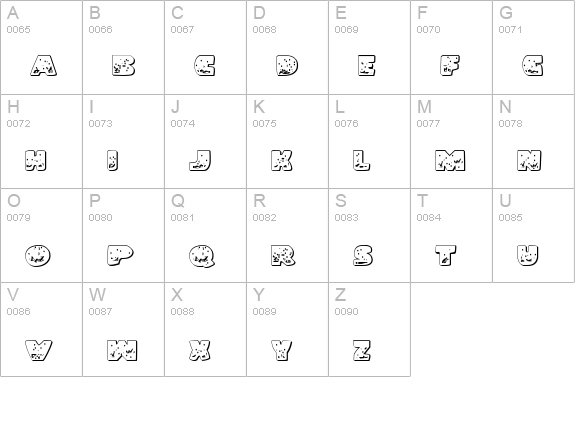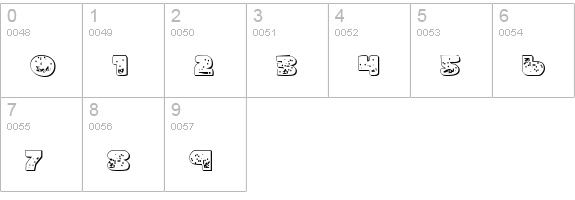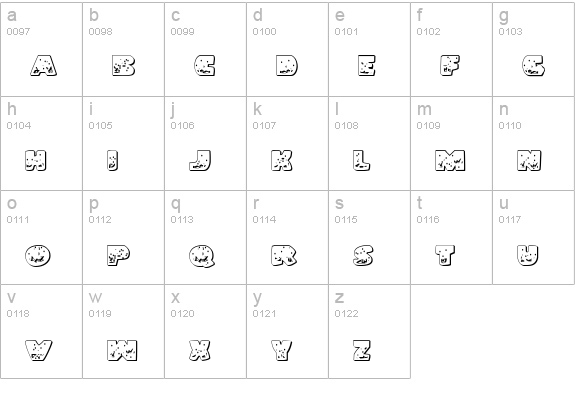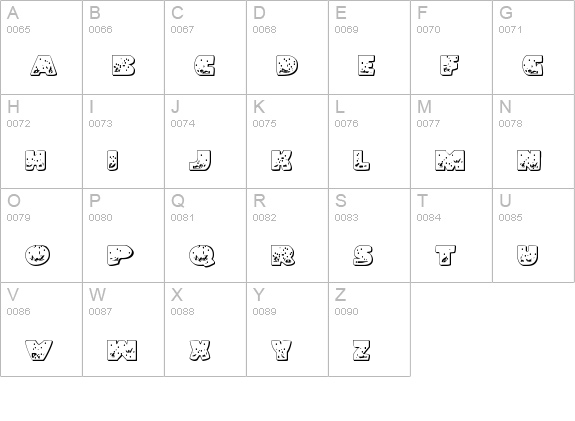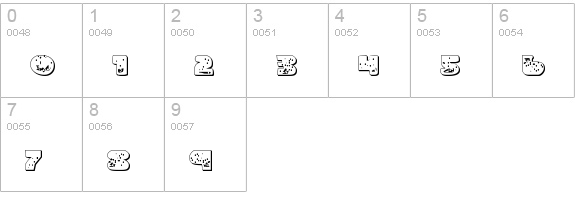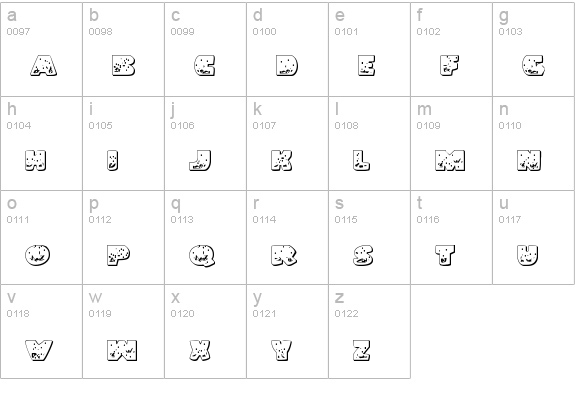
Land Shark Outline font is a bold and dynamic typeface that is perfect for making a statement with your designs. Its sharp edges and clean lines give it a modern and edgy look, making it ideal for a wide range of projects, from posters and logos to headlines and branding. This font is designed to grab attention with its distinctive outline style. It has a strong and commanding presence that demands to be noticed. Whether you're looking to create eye-catching titles or add a touch of boldness to your designs, Land Shark Outline font is the perfect choice. The best part is that Land Shark Outline font is completely free to use. It is freely available to download at FontsMarket.com, a trusted source for high-quality fonts. With just a few clicks, you can have this powerful font in your collection and start using it in your projects right away. Not only does Land Shark Outline font offer a striking appearance, but it also provides versatility and ease of use. It is compatible with various design software and can be easily customized to suit your needs. Whether you want to adjust the thickness of the outline or experiment with different colors, Land Shark Outline font gives you the freedom to create unique and captivating designs. With Land Shark Outline font, you can add a touch of boldness and modernity to your designs without sacrificing readability. Its clean and well-defined outlines ensure that your text remains legible, even at small sizes. This makes it a great choice for both print and digital projects, ensuring that your message is effectively communicated to your audience. So why wait? Download Land Shark Outline font today and unleash your creativity. Whether you're a graphic designer, a marketer, or simply someone who loves experimenting with typography, this font is sure to become a valuable addition to your design toolkit. Don't miss out on this opportunity to make a bold statement with your designs, and remember, it's available for free at FontsMarket.com.